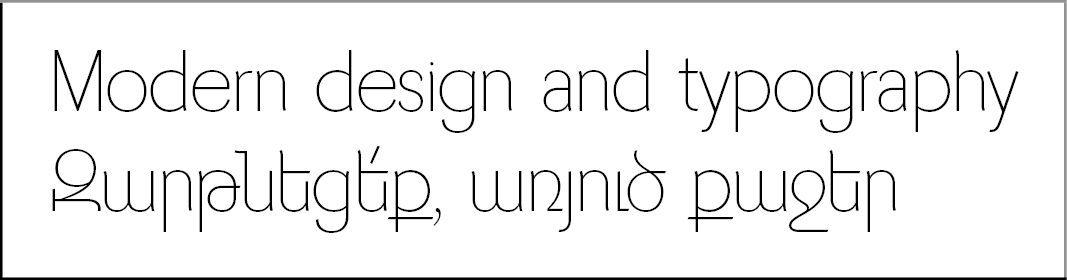
Display typefaces, Edik Ghabuzyan
GHEA Vem
Design date: 2018
The font family includes Armenian and Latin alphabet systems.
The font can be used as a Display or Title font.